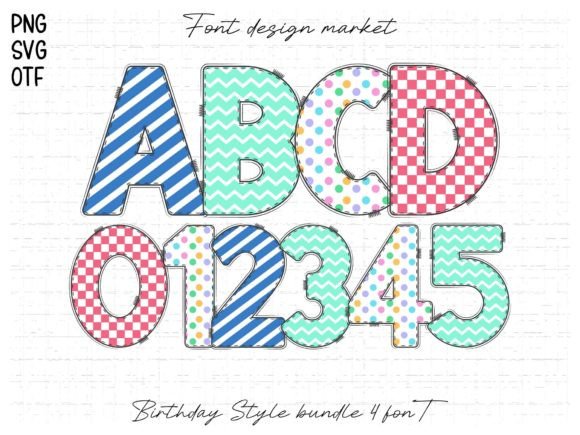
Embark on a colorful adventure with the Birthday Style Font, a delightful creation by Font Design Market. This enchanting font exudes charm and playfulness, captivating hearts with its vibrant hues and whimsical design. Its friendly and inviting personality makes it the perfect choice for any occasion that calls for a touch of joy and celebration.
With its cute and lovely appearance, the Birthday Style Font adds a pop of color and personality to your creative projects. Its modern and stylish design makes it the perfect choice for invitations, cards, posters, and social media posts. Let your words dance with delight as you create eye-catching headlines, quotes, and slogans that are sure to leave a lasting impression.
The Birthday Style Font is incredibly versatile, adapting seamlessly to a wide range of projects, from children's books and party decorations to branding materials and digital designs. Its playful and authentic nature adds a touch of whimsy and charm to any project, making it a must-have for designers, crafters, and creative entrepreneurs alike.